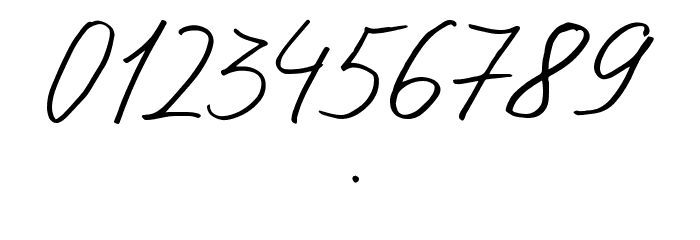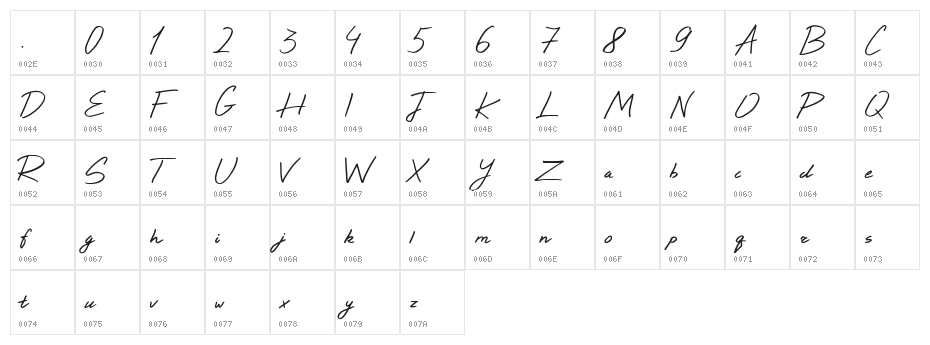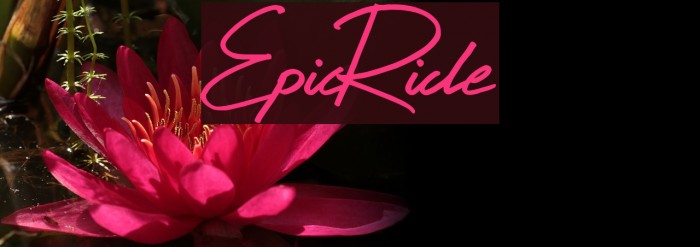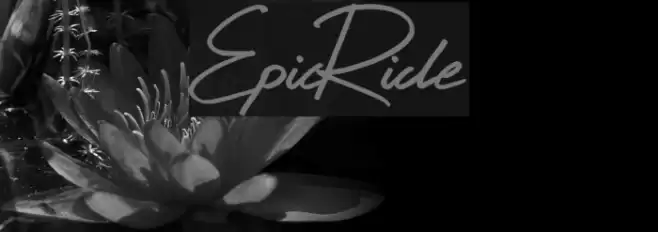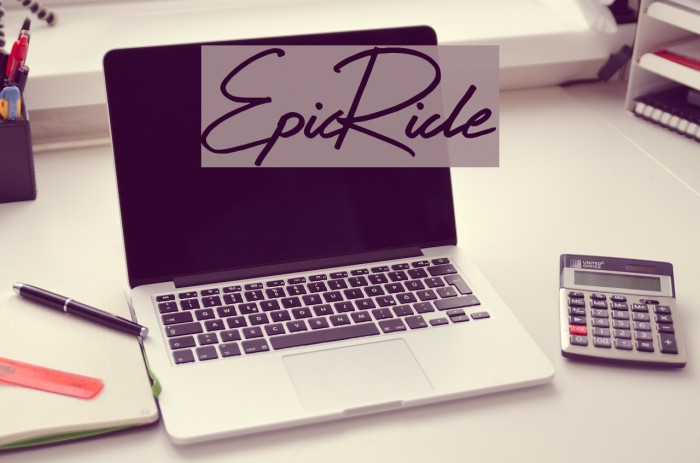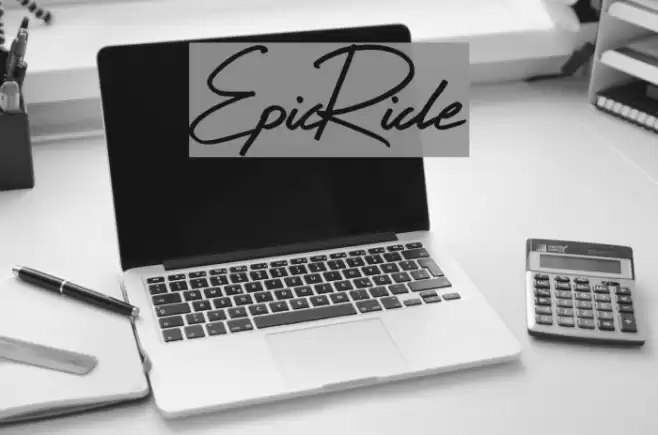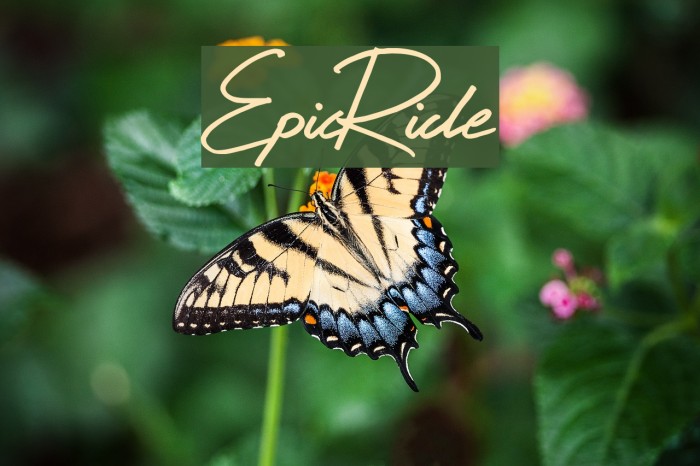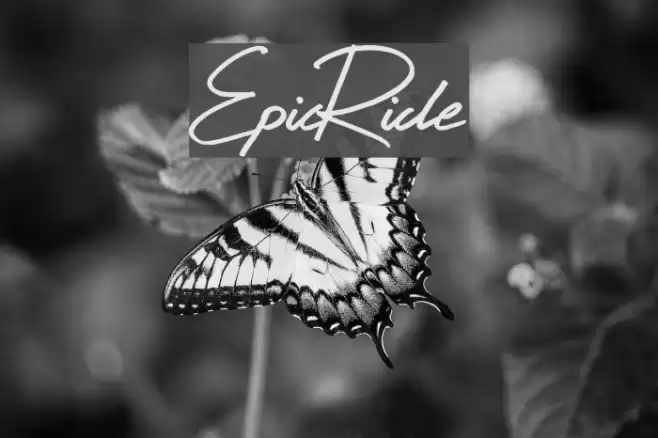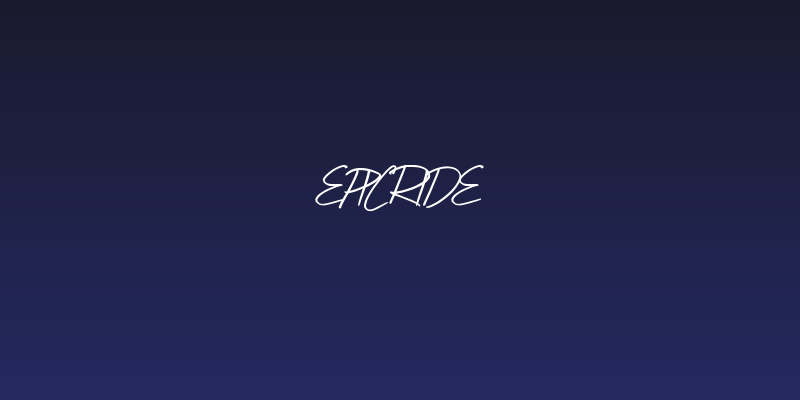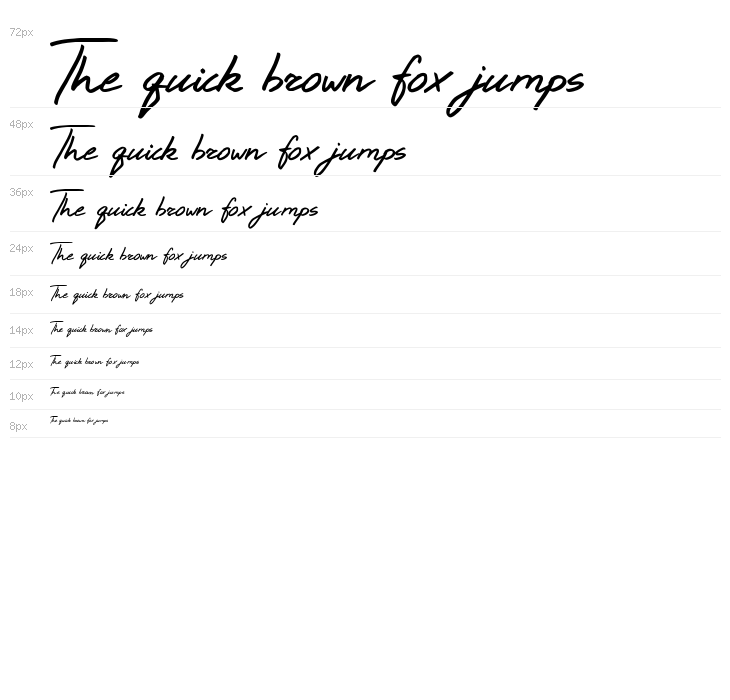
EpicRide Font
EpicRide Description
This font features a dynamic and energetic script style, characterized by its flowing, cursive letterforms that convey a sense of movement and fluidity. The uppercase letters are bold and slightly slanted, giving them a sense of urgency and speed. The lowercase letters maintain a consistent flow, with smooth connections between characters, enhancing the handwritten feel. The numerals are clear and legible, matching the overall script style with a slight slant. This font is perfect for projects that require a personal touch or a sense of dynamism and creativity.
| Proposed Projects | Ideal for branding, invitations, greeting cards, and any project that benefits from a personal, handwritten touch. |